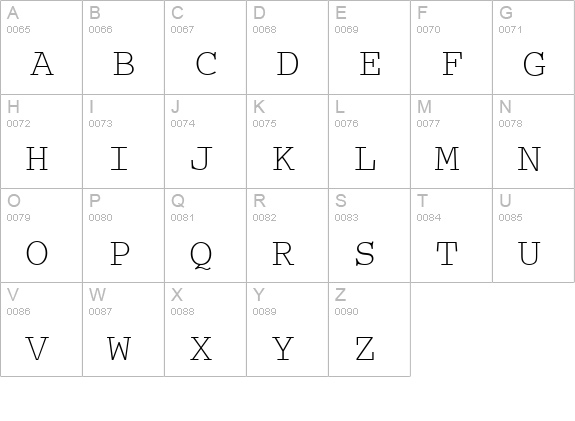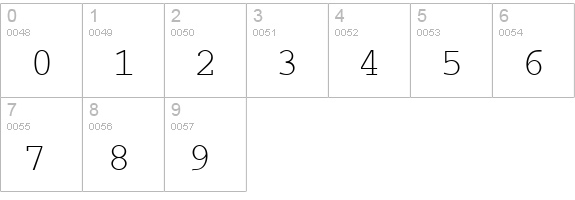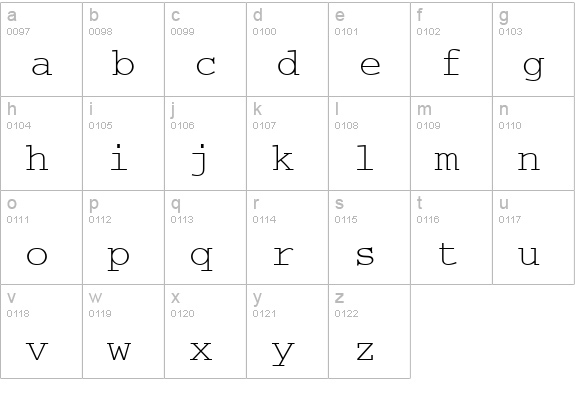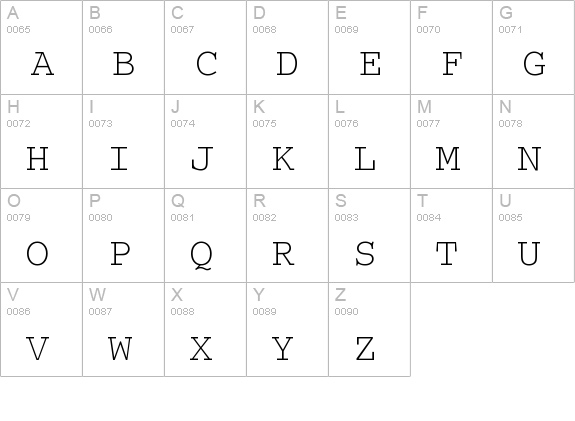
CourierMCY Font Details
CourierMCY font is a sleek and versatile typeface that is perfect for a wide range of design projects. Its clean lines and distinct letterforms make it an ideal choice for anything from professional documents to creative artworks. With its classic monospaced design, CourierMCY exudes a timeless appeal that is both functional and stylish. What sets CourierMCY apart is that it is completely free to use, making it accessible to designers and enthusiasts alike. Whether you are working on a branding project, creating digital content, or simply looking to elevate your designs, CourierMCY offers a reliable and elegant solution. You can easily download CourierMCY for free at FontsMarket.com, where you can explore a vast collection of high-quality fonts for your creative endeavors. Embrace the versatility and sophistication of CourierMCY font today and elevate your projects with its timeless appeal.